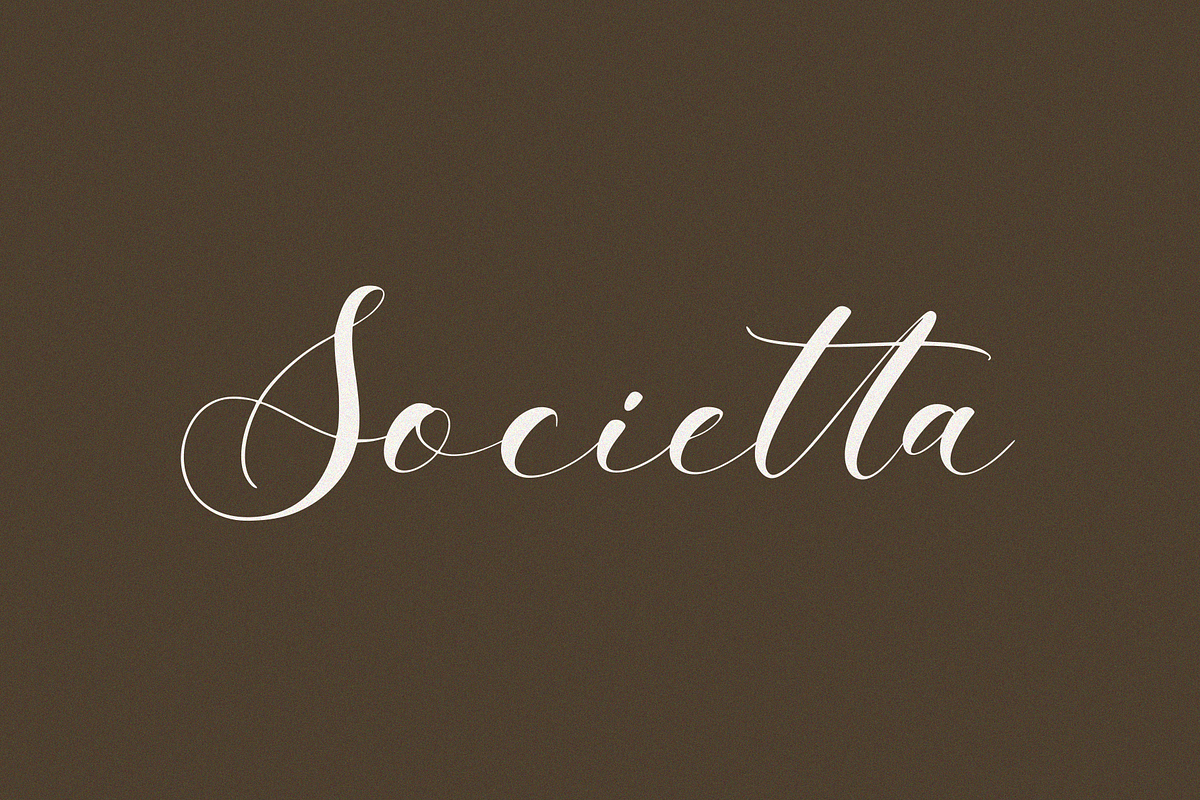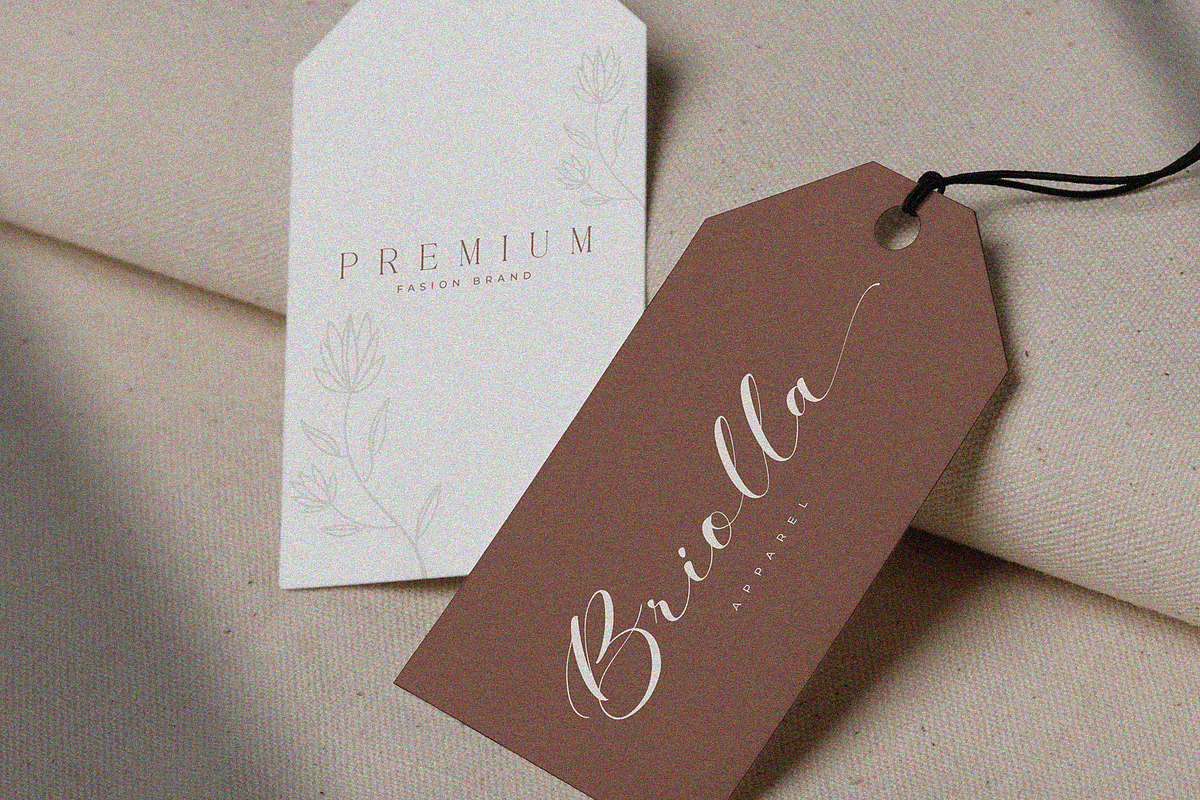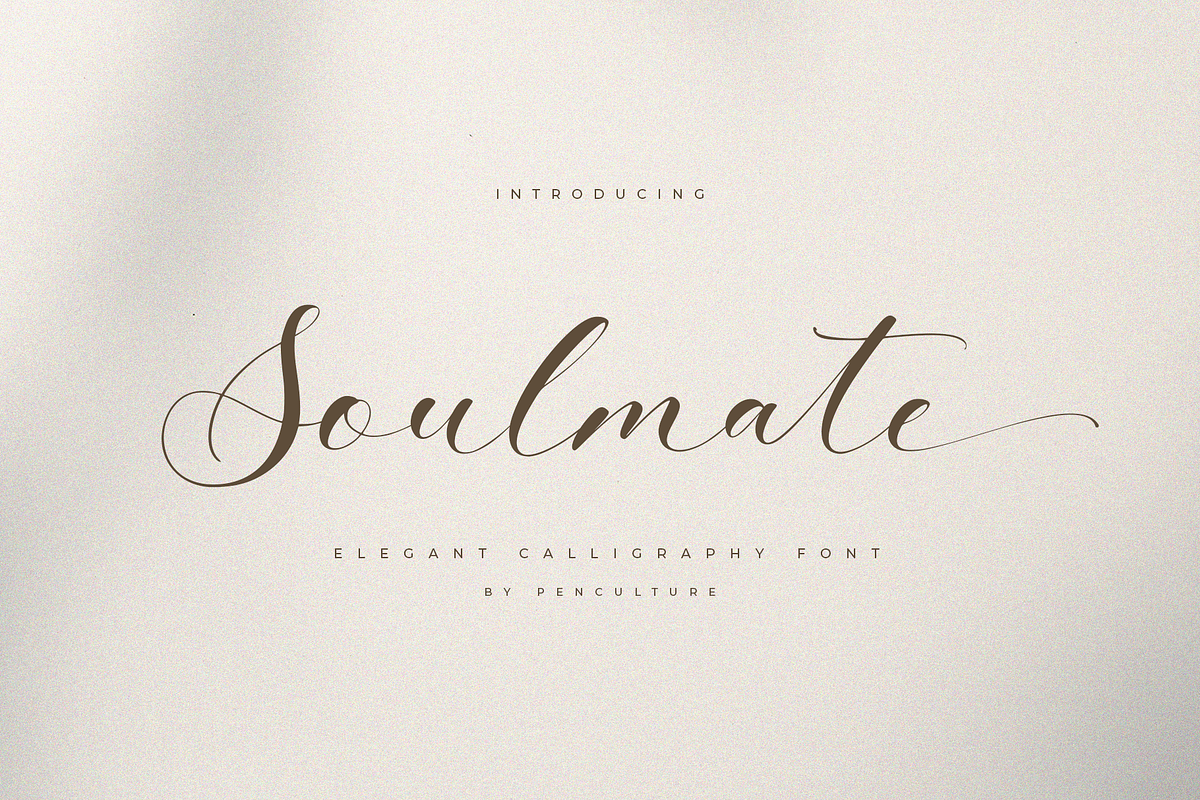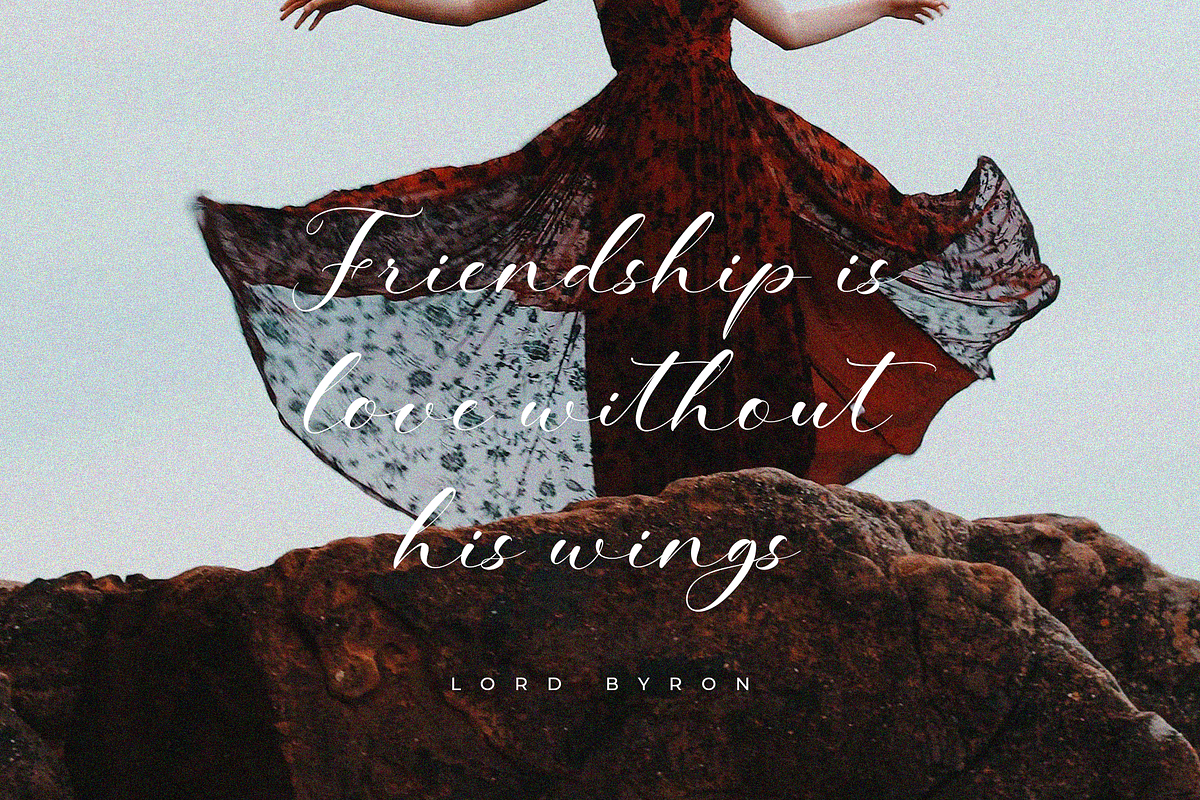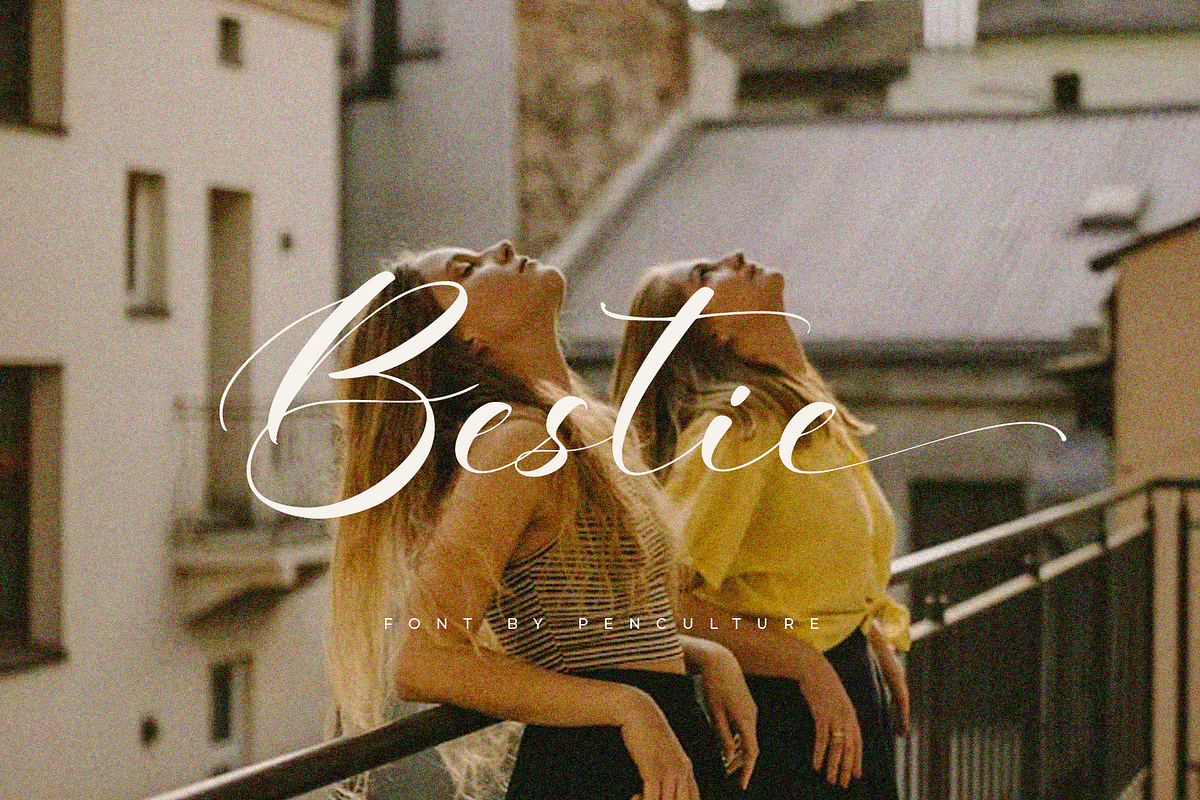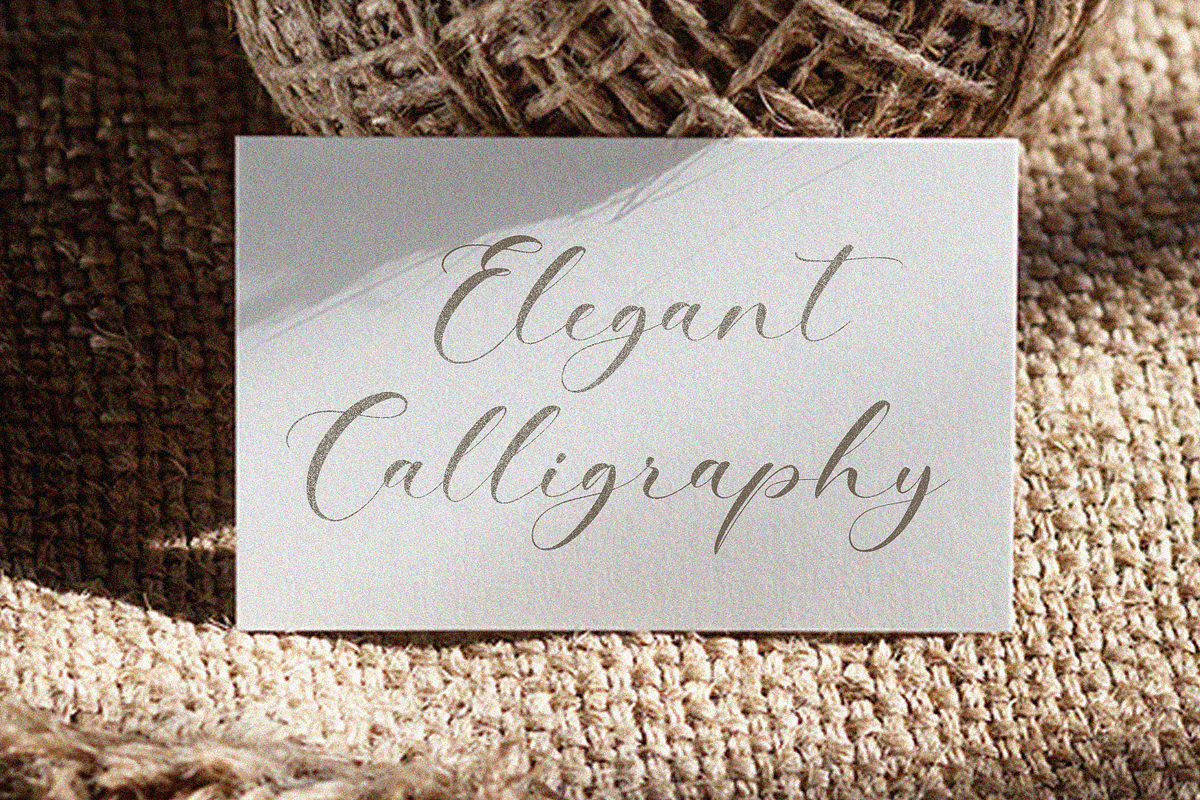
Soulmate - Elegant Calligraphy Font
Introducing Soulmate - The Elegant Calligraphy Font
Soulmate is the perfect font for weddings, invitations, and more. With its graceful curves and delicate strokes, it adds a touch of elegance to any project. Ideal for wedding stationery, logos, branding, and home decor, Soulmate includes a full set of characters, numerals, punctuation, and ligatures. Enhance your designs with Soulmate's timeless beauty and sophistication, perfect for both print and digital use.